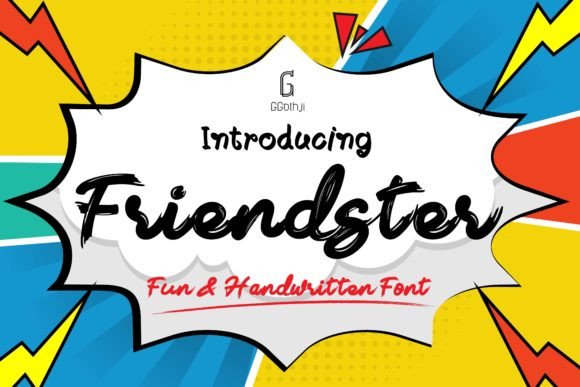
Embark on a calligraphic journey with Friendster Font, an enchanting script font family that radiates nostalgia and personal charm. This vintage handwritten font, meticulously crafted by GGothji, evokes a sense of warmth, authenticity, and playfulness that will captivate your audience.
Friendster exudes a vibrant and carefree spirit, reminiscent of handwritten notes exchanged between friends. Its flowing strokes and charming irregularities add a touch of individuality and character to your designs. Let your creativity soar as you explore the endless possibilities of Friendster, a versatile font perfect for a myriad of projects.
Whether you're a designer seeking to add a whimsical touch to your apparel branding, a social media enthusiast looking to create captivating posts, or a crafter seeking unique lettering for your handmade creations, Friendster is your perfect companion. Its versatility knows no bounds, extending to daily quotes, tote bag or handbag branding, product packaging, cups, posters, and greeting cards.
With Friendster, you can effortlessly add a touch of elegance and sophistication to your design projects. Its delicate curves and playful strokes will transform your creations into visually stunning masterpieces that leave a lasting impression. Embrace the charm of Friendster and embark on a creative adventure that will leave you feeling inspired and fulfilled.